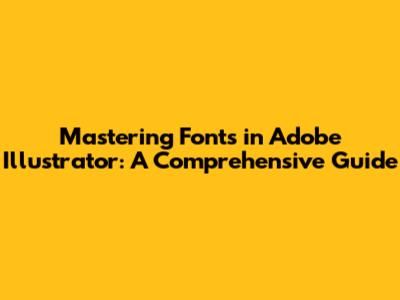
Hey guys! Ever wondered how to edit fonts in Adobe Illustrator like a pro? You're in the right place! Illustrator is a powerhouse for creating stunning visuals, and a big part of that is working with text. This guide is designed to walk you through everything you need to know about fonts in Illustrator, from the basics to some cool advanced tricks. We'll cover how to choose the right font, change sizes, colors, and even how to warp and stylize your text for a truly unique look. Whether you're a complete beginner or just looking to level up your Illustrator skills, this is your go-to resource. Let's dive in and unlock the secrets to beautiful typography!
Choosing the Right Font: Setting the Stage for Success
Choosing the perfect font can be one of the most crucial steps in your design process. The font you select sets the tone and personality of your project. It’s like picking the right outfit – it needs to match the occasion, the mood, and who you are! Adobe Illustrator offers a huge variety of fonts, and it can be a little overwhelming at first. So, how do you even begin to choose? Think about what you're trying to communicate. Is your project professional, fun, or somewhere in between? A sleek, sans-serif font might be ideal for a corporate website, while a playful, handwritten font could be great for a children's book. Consider your target audience too. Are they likely to appreciate a classic serif, a modern sans-serif, or something more unique? Don't be afraid to experiment! Try out a few different fonts and see how they look in your design. Illustrator makes it easy to preview fonts, so you can quickly compare and contrast different options. Just select your text, go to the Character panel (Window > Type > Character), and use the font dropdown menu. You can scroll through the fonts, and the selected text will update in real time, making it super easy to compare. Pay attention to readability too. Some fonts are beautiful but difficult to read, especially in small sizes or long paragraphs. Make sure your chosen font is easy to read, both at a glance and when viewed for an extended period. Look at the spacing between the letters and words; this will contribute to readability. The font's weight (bold, regular, light, etc.) also matters. Think about how the font will interact with the other elements of your design. Does it complement the colors, images, and overall layout? Choosing the right font is a key step to making your design not only look good but also communicate effectively. Remember to consider your message, your audience, and the overall feel of your project. Have fun exploring different fonts and find what works best for you! There are a ton of online resources, such as Google Fonts and Adobe Fonts, that provide free and premium font options. Check them out and build your typography arsenal. You may also want to consider the legal aspects. Some fonts are free for commercial use, while others require a license. Make sure you understand the terms of use before using a font in your project.
Basic Font Editing: Size, Color, and Style
Once you’ve chosen your font, it's time to get down to the basics and actually start editing! Illustrator offers tons of simple ways to change things up. Let's start with the Character panel – this is your main hub for all things text. You can find it by going to Window > Type > Character. Inside this panel, you’ll find all the controls you need. Changing the font size is as easy as selecting your text and entering a new value in the font size field. You can use the dropdown to select a preset size, or type in a custom value. Play around with it; see how the size affects the overall look of your design. Remember that the font size is usually measured in points. The color of your font is another important detail. In the Character panel, click the color swatch (it probably shows black by default). This will bring up the Color Picker, where you can select any color you want. You can also use the Swatches panel (Window > Swatches) to select from predefined colors or create your own custom color palettes. Styling your text is where things get really fun. You can apply different styles like bold, italic, underline, and all caps directly from the Character panel. Bold will make your text stand out, while italic can add a touch of elegance. You can also play with the tracking (the space between letters) and kerning (the space between specific pairs of letters). Adjusting the tracking can make your text appear more or less dense, while kerning is perfect for tweaking the spacing of individual letter pairs. You can also use the Paragraph panel (Window > Type > Paragraph) to align your text (left, right, center, or justified), adjust the indentation, and add space before or after paragraphs. Make sure to check how the text interacts with the rest of your design. Sometimes, a simple change in color or size can completely transform the look and feel. Take your time, experiment with different options, and see what works best. Don’t be afraid to try different combinations! Illustrator's easy-to-use interface makes it simple to test out different styles and see how they look. By mastering these basic font editing techniques, you’ll be well on your way to creating stunning typography. So get creative, have fun, and don’t be afraid to push the boundaries!
Advanced Font Editing: Warping and Text Effects
Alright, let's take your font game to the next level! Once you’ve mastered the basics, it’s time to explore some advanced techniques like warping text and applying special effects. This is where you can really start to get creative and add some extra flair to your designs. One cool thing you can do is warp your text using the Warp effect. To do this, select your text, go to Effect > Warp, and choose from a variety of preset warp styles. You can bend, arch, bulge, and wave your text, all with a few clicks. Experiment with the different settings to see how they change the appearance. You can also manually adjust the warp options to fine-tune the effect. For more control, try converting your text to outlines. This turns your text into vector shapes, which means you can edit them just like any other shape in Illustrator. Select your text, right-click, and choose “Create Outlines.” Once converted, you can manipulate the individual points and paths of each letter. This opens up a whole new world of possibilities for customizing your text. You can use the Direct Selection Tool (the white arrow) to edit individual anchor points, curves, and shapes. This is great for creating unique letterforms or adding custom flourishes. You can also apply other effects to your text to create really interesting looks. Go to Effect > Stylize and experiment with options like Drop Shadow, Inner Glow, and Outer Glow. These effects can add depth and dimension to your text. Another cool technique is using text wraps. You can make text wrap around shapes or images, which can be a great way to integrate text into your design more seamlessly. To do this, create a shape or image, and then place your text near it. Select both the shape/image and the text, and go to Object > Text Wrap > Make. Adjust the offset to control the distance between the text and the object. There are many other advanced techniques, such as creating custom typefaces, using 3D effects, and integrating text with other design elements. You can also use the Transparency panel to create interesting effects, such as blending modes and opacity masks. Remember to play around with these techniques and experiment to find out what works best. Combine different effects and settings to get the look you want. By using these advanced techniques, you can transform your text from ordinary to extraordinary and create really eye-catching designs. Now go out there and create some amazing typography!
Troubleshooting Common Font Issues in Illustrator
Even the most experienced designers run into a few snags sometimes. Let's tackle some of the most common font issues in Illustrator, so you can keep your projects running smoothly. The first issue you might run into is missing fonts. This can happen if the font you used isn't installed on the computer you're working on. If Illustrator can't find the font, it will usually substitute it with a default font, which can really mess up your design. To fix this, you'll need to install the missing font on your system. You can download fonts from various online sources, such as Google Fonts or Adobe Fonts, or you can purchase fonts from sites like MyFonts. Another common issue is font rendering problems. Sometimes, your text might appear blurry, pixelated, or have strange outlines. This is usually due to the anti-aliasing settings in Illustrator. To fix this, go to View > Anti-aliasing and choose an option like “Optimize for Bitmap Images” or “Smooth”. Another potential issue is text that's behaving unexpectedly. If your text isn't displaying correctly or is being cut off, check your text frame. Make sure the text frame is large enough to contain all your text. You can also adjust the text frame options, such as the text inset, to control how the text interacts with the frame. It's also important to be aware of font licensing. Make sure you have the proper licenses for all the fonts you use in your designs. Some fonts are free for personal use but require a commercial license for professional projects. Another thing to consider is font compatibility. While Illustrator supports a wide variety of font formats, you might encounter issues with certain fonts. If you're having trouble with a specific font, try converting it to outlines or using a different font. If you're working with a team, make sure everyone has access to the same fonts. You can create a font library or use a font management tool to keep things organized. If you're still running into issues, check the Illustrator help documentation or search online for solutions. There are tons of resources available, and you're bound to find a solution. By addressing these common font issues, you can prevent frustration and create professional-looking designs. Remember to back up your fonts and designs regularly to avoid data loss. Have fun and keep creating!
Tips and Tricks for Font Management and Workflow
Alright, let's talk about some tips and tricks for font management and workflow to help you stay organized and efficient. Keeping your fonts organized is super important, especially if you work with a lot of different fonts. Create a well-organized system for your fonts so you can quickly find what you need. One helpful tip is to create folders for different font categories, such as serif, sans-serif, script, and display fonts. This will make it easier to browse and find the right font for your project. You can also create separate folders for fonts you use frequently or for specific projects. Using a font management tool can be a game-changer. These tools help you organize, activate, and deactivate fonts, making it easy to manage your font library. Some popular font management tools include Adobe Fonts (integrated with Creative Cloud), FontBase, and NexusFont. Another useful tip is to create a font style guide for each project. This will help you keep track of which fonts you’re using, their sizes, and their styles. Include this information in your project documentation, so everyone working on the project has the same information. Using keyboard shortcuts can save you a ton of time. Learn the keyboard shortcuts for common font editing tasks, such as changing font size, color, and style. This can significantly speed up your workflow. When working on a team project, make sure everyone has access to the same fonts. You can create a shared font library or use a cloud-based font management system to ensure everyone is using the same fonts. Before starting a new project, take some time to explore different fonts and create a font mood board. This can help you get a sense of the style and feel of your design before you start. Always back up your fonts and project files regularly. This will prevent data loss if something goes wrong. If you’re working with a lot of text, consider using paragraph and character styles. This will allow you to quickly and consistently apply formatting to your text. Use the character and paragraph styles panels to save your text styles, which are incredibly helpful to maintain consistency. Get familiar with the OpenType features of your fonts. Many fonts include OpenType features, such as ligatures, stylistic sets, and alternate characters. Learning how to use these features can really add some extra polish to your designs. Staying organized and efficient will save you time and reduce frustration. Remember to always back up your fonts and project files regularly. With the right tools and techniques, you can create professional-looking designs that will impress your clients and audience.
Conclusion: Unleash Your Typography Potential in Illustrator
So there you have it, guys! We've covered a ton of ground, from the fundamentals of editing fonts in Adobe Illustrator to some advanced techniques. Remember, the key to great typography is practice and experimentation. Don't be afraid to try new things, explore different fonts, and push your creative boundaries. Whether you're designing a logo, a website, or a print advertisement, the way you use fonts can make or break your project. By mastering the techniques we've discussed, you'll be well on your way to creating visually stunning designs that capture your audience's attention. Remember to choose the right font, experiment with different styles and effects, and pay attention to the details. Keep practicing, keep learning, and most importantly, have fun! With a little bit of effort and creativity, you can transform your designs from basic to brilliant. Go out there, explore the world of typography, and unleash your creative potential! The possibilities are endless, so get started today and elevate your designs to the next level. Thanks for joining me on this typography journey. I hope you found this guide helpful and inspiring. Happy designing!